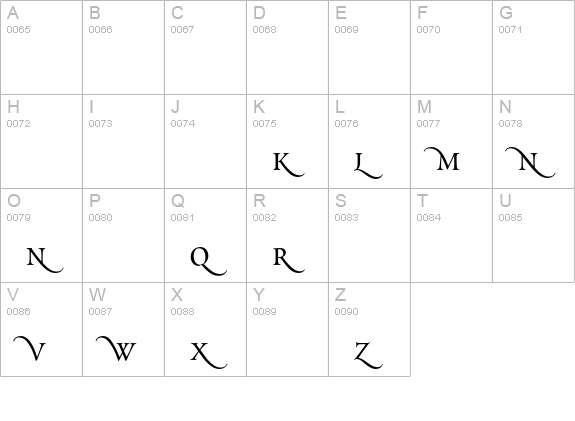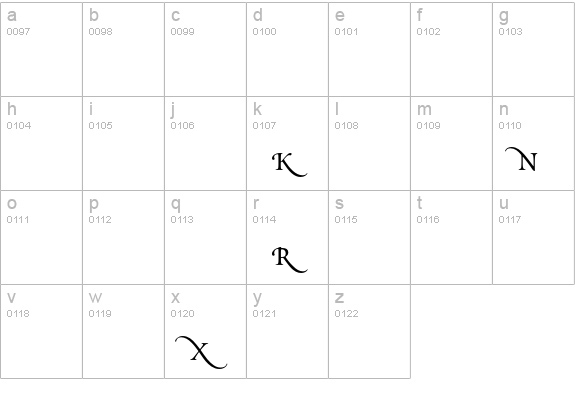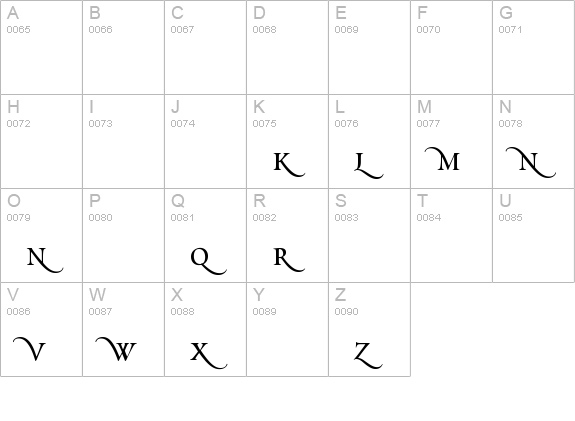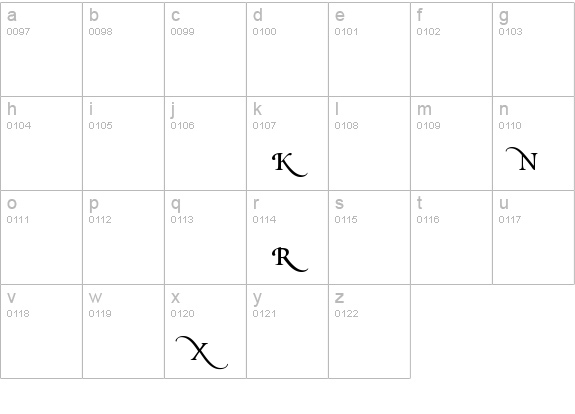
Poetica Roman Small Capitals Alternate Font Details
Poetica Roman Small Capitals Alternate font is a stunning typeface that exudes elegance and sophistication. Its intricate details and graceful curves make it perfect for adding a touch of refinement to any design project. This font exudes a timeless charm that is sure to captivate and inspire. One of the most appealing features of Poetica Roman Small Capitals Alternate font is that it is available for free download at FontsMarket.com. This means that you can effortlessly enhance your creations with this exquisite typeface without breaking the bank. Whether you are working on a wedding invitation, a branding project, or a piece of editorial design, this font will elevate your work to a whole new level. With its classic yet modern aesthetic, Poetica Roman Small Capitals Alternate font is a versatile choice for a wide range of applications. Its small capitals alternate glyphs add a unique flair, making your text stand out with a touch of sophistication. Download this font for free today and let your creativity shine with Poetica Roman Small Capitals Alternate.